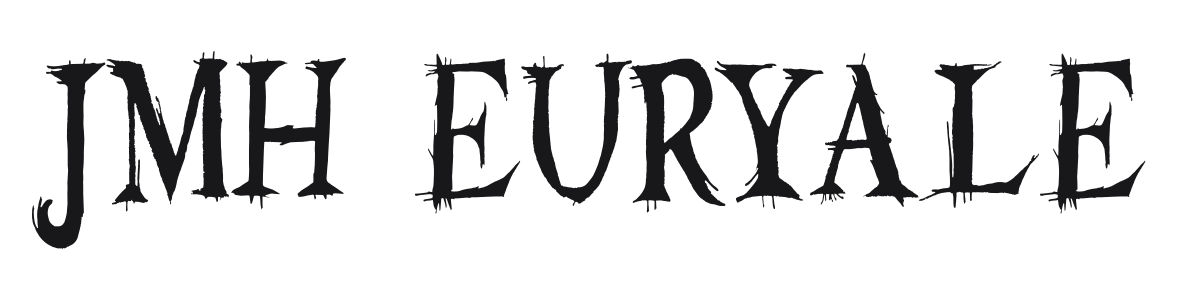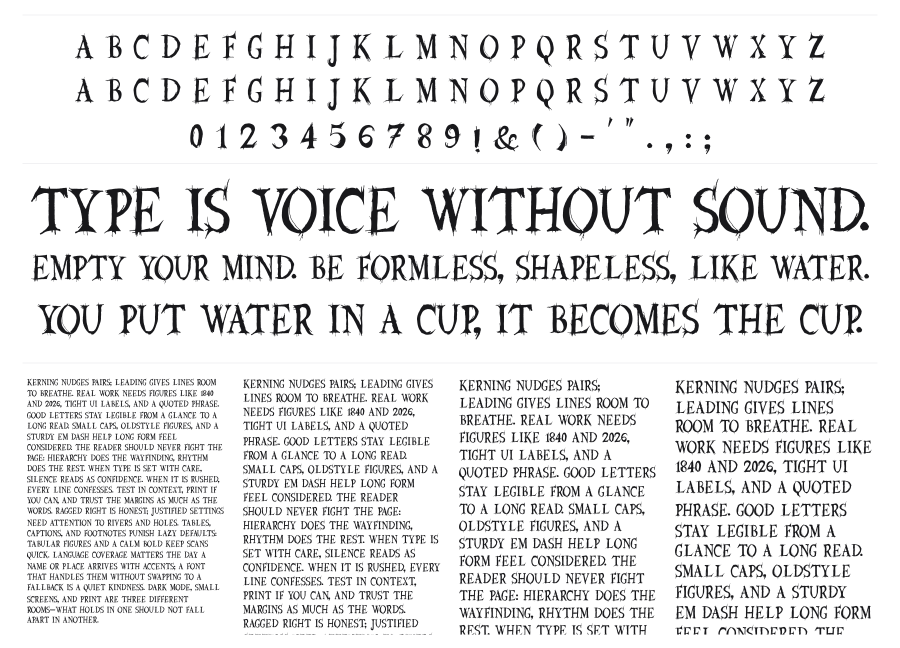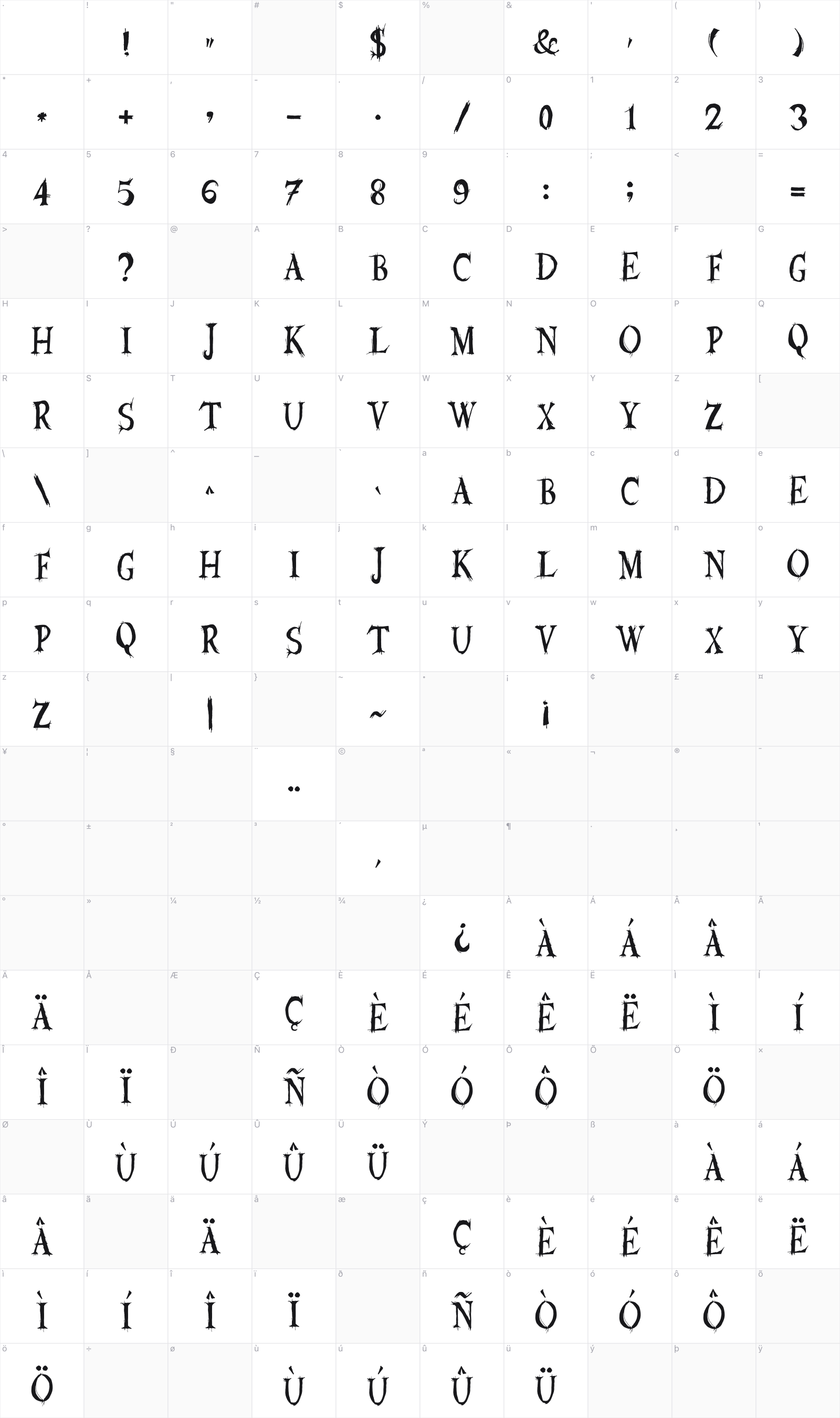
JMH Euryale
by Jorge Mor�n
JMH Euryale is a distressed gothic serif with jagged, splintered strokes that look like they've been dragged through something sharp. The erosion is thorough and consistent, giving every character barbed terminals and crumbling edges that read as genuinely threatening rather than decorative. Strong at large sizes for horror titles, heavy metal branding, and dark editorial work.